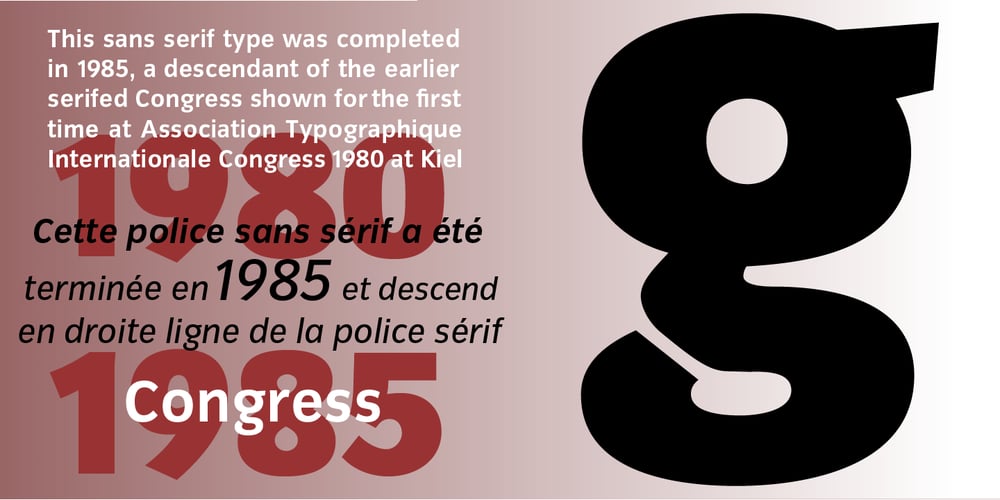
Congress Sans
Congress Sans font
Congress Sans Font Family was designed by Adrian Williams and published by Club Type. Congress Sans contains 18 styles and family package options. This sans serif type was completed in 1985, a descendant of the earlier serifed Congress shown for the first time at the Association Typographique International Congress, which proved to be so popular in 1980 at Kiel; designed to present a style equally appealing in European languages. Many characters are more condensed than is usual, while others have been exaggerated. The concept being to bring an equality of importance to the whole, producing a collection of International characters working together in harmony on the page-a common aim that Europeans wish of any Congress.